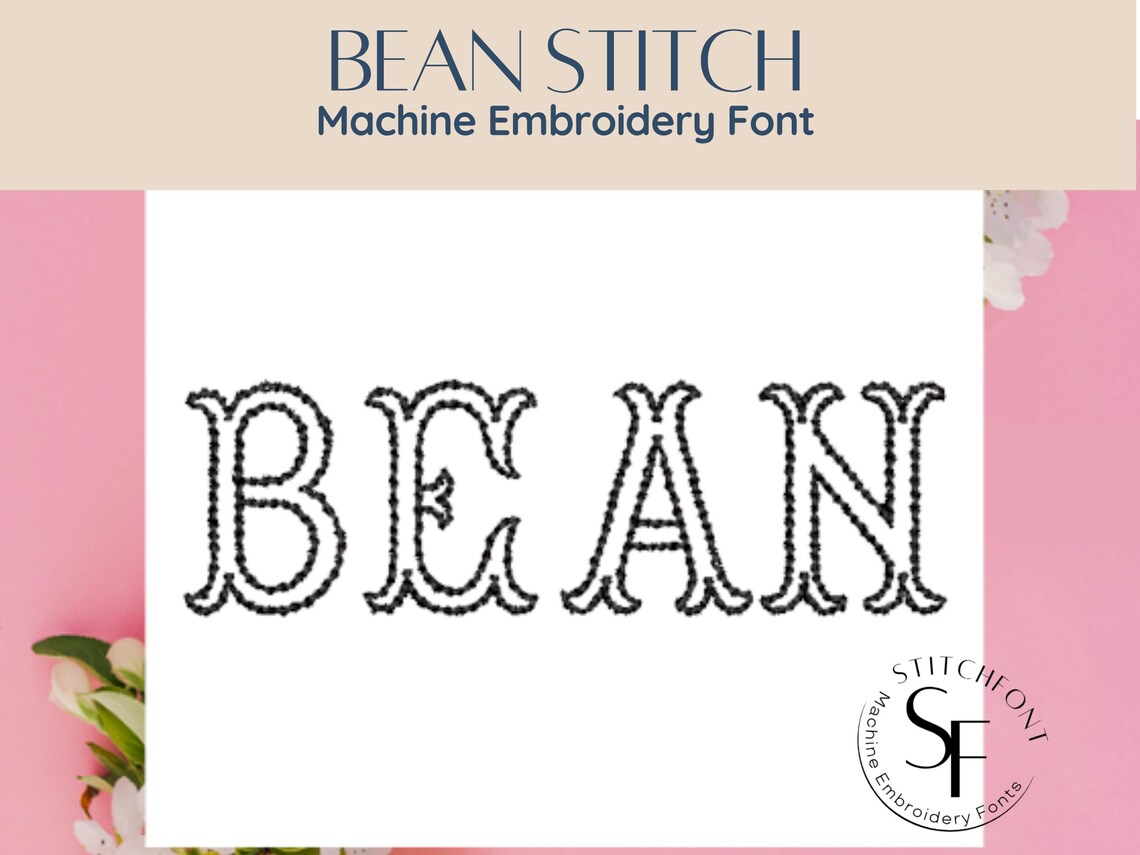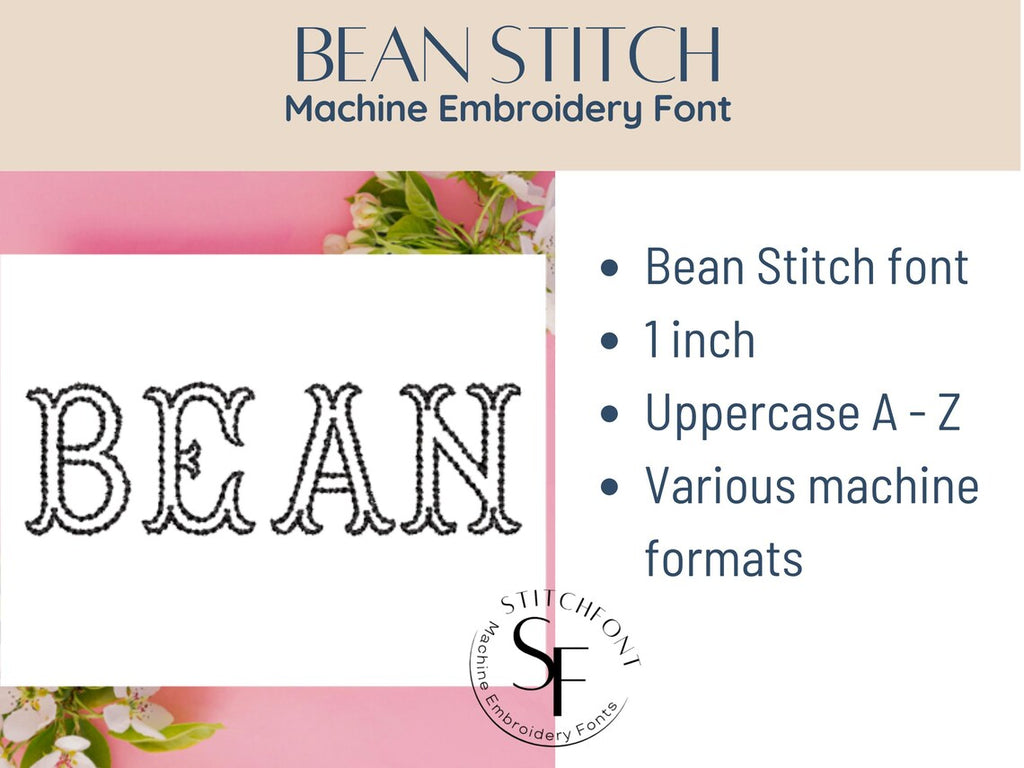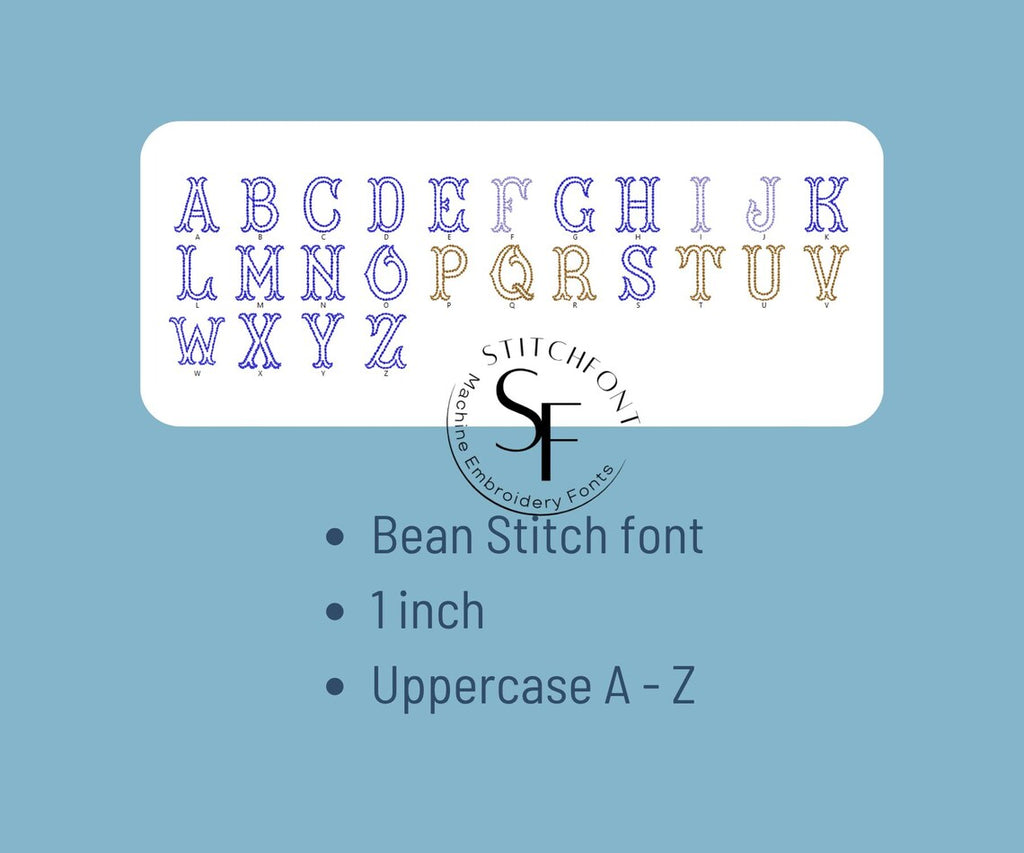
Machine Embroidery Bean Stitch Font - Bean - 1 size - 8 formats
Bean Stitch Embroidery Font โ€“ 1 Inch Uppercase
Add a bold and vintage flair to your embroidery projects with the Bean Stitch Font! Featuring classic serif-style uppercase letters and a clean finish, this font is ideal for creating standout text on bags, apparel, and personalized gifts.
Details:
* Bean stitch font
* Size: 1 inch tall letters
* Characters included: Aโ€“Z uppercase